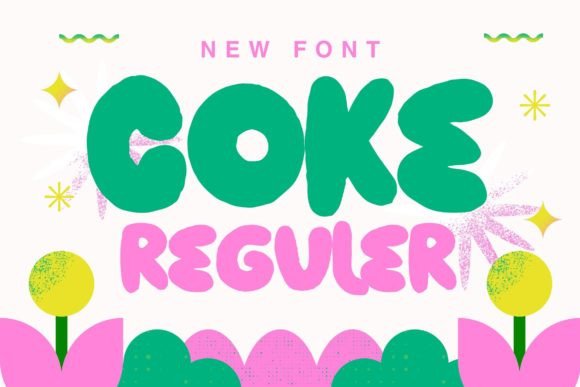
Coke Font Download Display Fonts: When it comes to fonts that radiate charm, friendliness, and contemporary style, the Coke Font is a true standout. Whether you’re working on a fun packaging design, a kid’s event flyer, or a cheerful website header, Coke brings personality to your project with its soft curves and friendly vibe.
What is the Coke Font?
Coke Font is a rounded display font with a clean, modern look and a playful, approachable feel. It is inspired by warmth and simplicity — characteristics that make it perfect for family-friendly brands, product packaging, and lifestyle content.
It has rounded terminals, wide spacing, and gentle curves that give off a non-threatening, casual tone — making it a top choice for any project that needs to feel relatable, youthful, and cheerful.
Despite its informal aesthetic, Coke maintains clarity and readability, even at smaller sizes — a rare quality for fonts with such character.
Key Features of Coke Font
Let’s explore why designers and content creators love the Coke Font:
🍭 Playful Personality
Coke’s round letterforms and soft edges make it look friendly and fun, evoking joy and comfort in every word.
🌟 Versatile for Display Use
It’s a display font, which means it works best in larger sizes — like logos, headlines, posters, or social media graphics. When you want your text to stand out and leave an impression, Coke delivers.
✨ Clean and Simple
While playful, Coke is not chaotic. Its structure is clean and well-balanced, with just the right amount of quirkiness.
🧒 Kid-Friendly Vibes
The font’s bubbly design makes it perfect for children’s products, toys, or educational material. It speaks directly to young minds (and the young at heart).
🖥️ Web and Print Ready
Coke looks equally good on digital platforms and in print media, thanks to its clear shapes and consistent design.
Use Cases: Where to Use the Coke Font
🎉 Event Posters & Flyers
Coke Font is perfect for casual, playful events such as birthday parties, community fairs, or school events. Its cheerful look draws attention and sets the mood instantly.
👕 Merchandise & Apparel
Add fun to T-shirt slogans, tote bags, or mug designs with Coke’s bouncy look.
📦 Product Packaging
Whether it’s candy, snacks, or beauty products targeted at teens or kids, Coke gives packaging a light-hearted, fresh energy.
📚 Kids’ Books & Educational Apps
Designers creating apps, books, or printables for children will find Coke Font a delightful match for headlines and buttons.
🛍️ Branding for Startups or Small Shops
If you’re branding a small business or startup with a casual, welcoming personality (think cafés, toy stores, or lifestyle brands), Coke fits naturally into the visual identity.
🎨 Canva & Social Media Graphics
Use Coke in Canva for Instagram posts, Facebook banners, or Pinterest quotes where you want to grab attention with charm.
Font Pairing Ideas for Coke
Since Coke is a display font with lots of personality, it pairs best with simple and neutral fonts that let it shine. Here are some recommendations:
| Font Name | Type | Why It Pairs Well |
|---|---|---|
| Open Sans | Sans-serif | Clean and versatile, balances Coke’s curves |
| Lato | Sans-serif | Modern yet neutral – complements playful fonts |
| Montserrat | Geometric | Stylish and structured, offers visual contrast |
| Roboto | Sans-serif | Highly readable, web-friendly body font |
| Raleway | Sans-serif | Elegant and thin, ideal for subtext or captions |
Use Coke for titles and highlights, and the pairing font for paragraphs or navigation to create a well-balanced design.
Final Thoughts
If you’re on the hunt for a rounded, approachable display font that brings a delightful and modern vibe to your designs, Coke Font is a sweet choice. From playful branding to friendly packaging, it communicates warmth in a stylish and readable way.